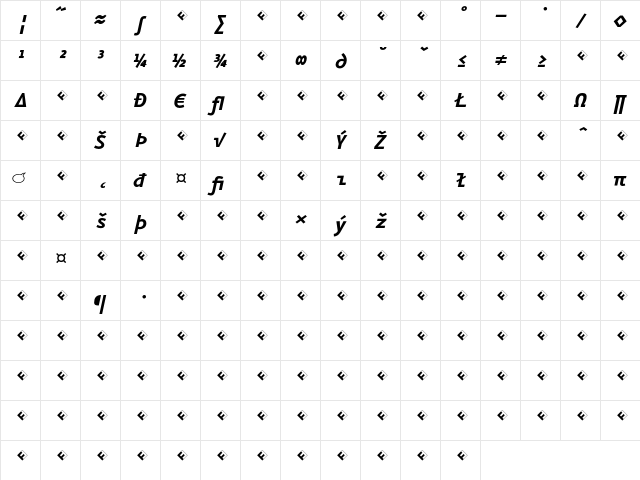
Eureka Mono Exp Bold Italic Font Preview
Design Context for Eureka Mono Exp Typeface
Eureka Mono Exp uses fixed-width spacing throughout, giving it the structured, systematic character associated with coding environments and technical documentation. Its italic angle brings a sense of urgency and motion to the letterforms. Its bold stroke weight gives it real presence on the page.
Pro Tip: Pair Eureka Mono Exp with a proportional sans for UI contexts where code-style labels and regular body copy need to coexist.